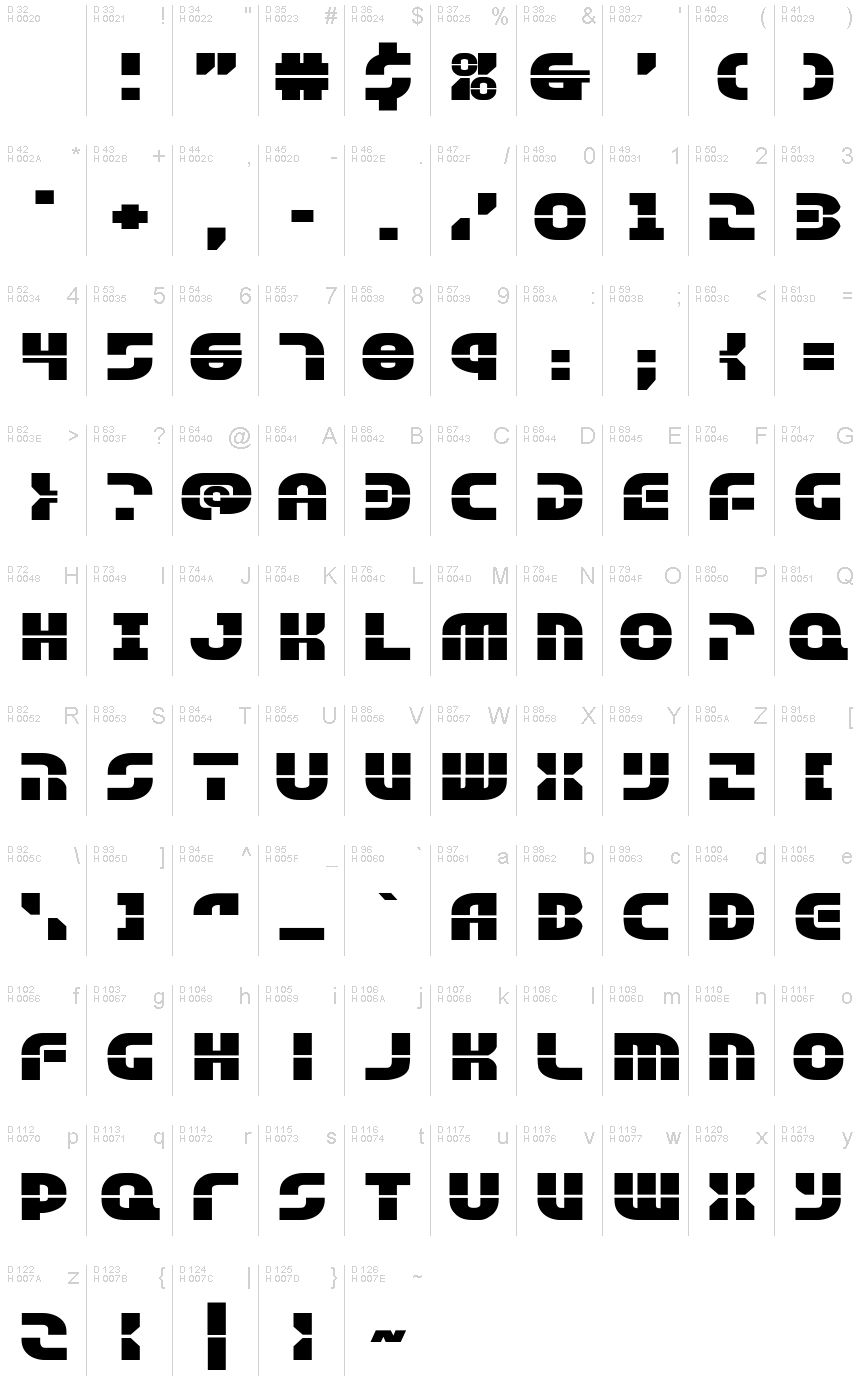
Rebel Command ExtraExpand
Rebel Command ExtraExpand font, part of the Rebel Command family by Iconian Fonts, exudes a captivating futuristic style that commands attention. With its bold presence and strikingly expanded form, this display font offers a sense of drama and modernity. The character design features sharp angles and unique structures that enhance its visual intrigue, making it ideal for impactful headlines or eye-catching promotional materials.
Perfect for everything from sci-fi-themed designs to dynamic branding projects, Rebel Command ExtraExpand is versatile yet distinctive. It works beautifully in contexts where bold statements are essential—think movie posters, tech product launches, or adventurous marketing campaigns. This font is not just a typeface; it’s an invitation to embrace the innovative and the unexpected.
Extra-expanded